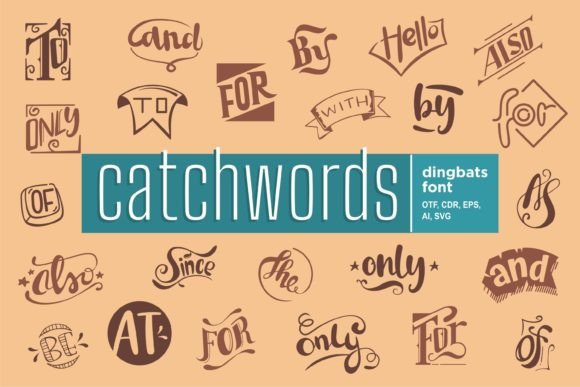
Introducing Catchwords Font, the ultimate addition to your fonts' library! Crafted by the talented onoborgol, this cool and creative dingbats font is a must-have for anyone seeking to add a touch of cuteness and charm to their designs.
With its extensive collection of captivating catchwords, Catchwords Font offers endless opportunities to enhance your creative projects. From adorable icons to whimsical symbols, this font brings a sense of playfulness that will instantly captivate your audience.
Looking to create eye-catching social media posts? Need to design a cute logo for your brand? Catchwords Font has got you covered! Its versatile and diverse range of characters ensures that you'll find the perfect element to complement your vision.
Imagine the delight of your followers as they scroll through their feeds and stumble upon your irresistibly adorable content. With Catchwords Font, you can effortlessly stand out from the crowd and leave a lasting impression.
Not only does Catchwords Font provide a visually appealing experience, but it also offers a seamless integration into your design workflow. Its user-friendly nature allows you to easily access and utilize the font across various platforms and design software. No more struggling to find the right image or icon – Catchwords Font has everything you need in one convenient package.
This font is more than just a collection of characters; it's a gateway to unleashing your creativity and expressing your unique style. Let your imagination run wild as you explore the endless possibilities and effortlessly bring your ideas to life.
Whether you're a professional designer or a passionate DIY enthusiast, Catchwords Font is the secret ingredient that will take your creations to a whole new level. It's time to infuse your projects with a touch of cuteness and unlock the power of captivating design.